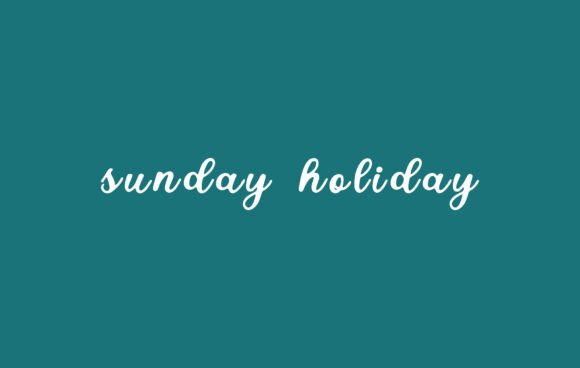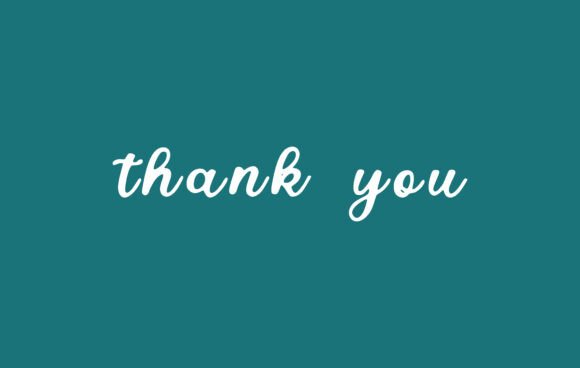
Introducing 8Bit Wonder Font: The Ultimate Handwritten Font for Creative Projects
Are you tired of using the same old fonts for your creative projects? Look no further! 8Bit Wonder Font is here to revolutionize the way you approach typography. This authentic handwritten font with a romantic touch is expertly designed to capture the hearts of designers and crafters alike. With its unique blend of elegance and playfulness, 8Bit Wonder Font has the potential to take your creative ideas to the highest level.
What Makes 8Bit Wonder Font So Special?
So, what sets 8Bit Wonder Font apart from other fonts on the market? For starters, its authentic handwritten style gives it a personal and intimate feel that’s perfect for a wide range of design applications. Whether you’re working on a magazine headline, social media post, branding campaign, wedding invitation, or card, this font is sure to make your project stand out.
One of the key features that makes 8Bit Wonder Font so versatile is its legibility. Even at smaller sizes, this font remains clear and easy to read, making it perfect for use as both title and body text. This means you can use it to create stunning headlines and paragraphs that will keep your audience engaged and interested.
Endless Design Possibilities with 8Bit Wonder Font
The possibilities are endless when it comes to using 8Bit Wonder Font in your designs. Here are just a few ideas to get you started:
- Magazine Headlines: Use 8Bit Wonder Font to create eye-catching headlines that will grab the attention of your readers.
- Social Media: Add a touch of personality to your social media posts with this unique and engaging font.
- Branding: Use 8Bit Wonder Font to create a cohesive brand identity that will set you apart from the competition.
- Wedding Invitations: Make your wedding invitations truly special with this beautiful and romantic font.
- Cards: Add a personal touch to your greeting cards and make them extra special with 8Bit Wonder Font.
Why Designers and Crafters Love 8Bit Wonder Font
So, why do designers and crafters love 8Bit Wonder Font so much? Here are just a few reasons:
- Unique Style: 8Bit Wonder Font has a unique and authentic style that’s hard to find in other fonts.
- Ease of Use: This font is incredibly easy to use, even for those who are new to design.
- Versatility: 8Bit Wonder Font can be used in a wide range of design applications, from print to digital.
- Legibility: This font remains clear and easy to read, even at smaller sizes.
In conclusion, 8Bit Wonder Font is a game-changer for designers and crafters looking to add a touch of personality and elegance to their creative projects. With its authentic handwritten style, romantic touch, and versatility, this font is sure to become a true favorite in your design arsenal. So why wait? Download 8Bit Wonder Font today and take your creative ideas to the highest level!